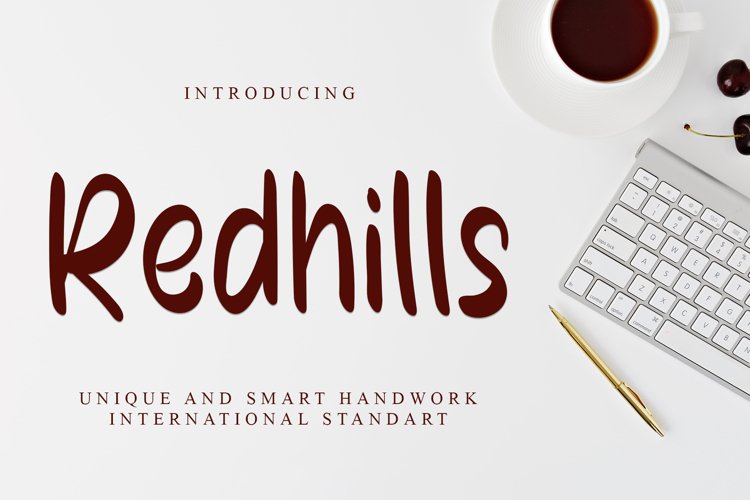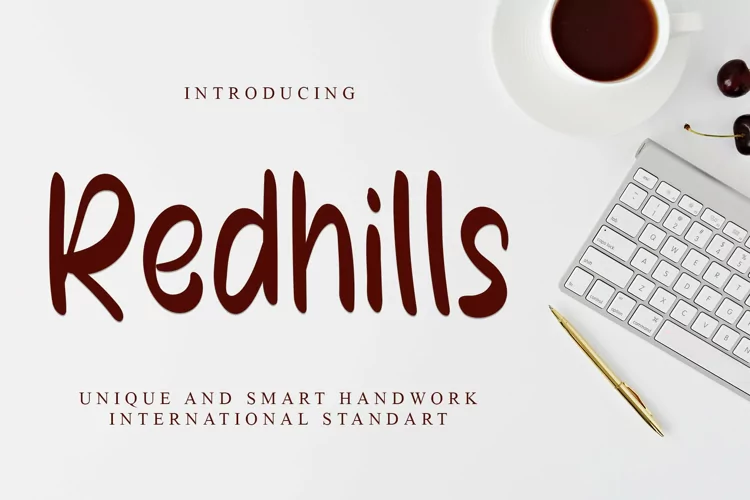
Introducing, this is our newest product, we call this product Redhills,
It looks amazing with sweet touches and beautiful curves in each letter. Redhills fonts are perfect for: wedding invitations, fashion magazines, logos, signatures, photography, watermarks, wall displays, social media,